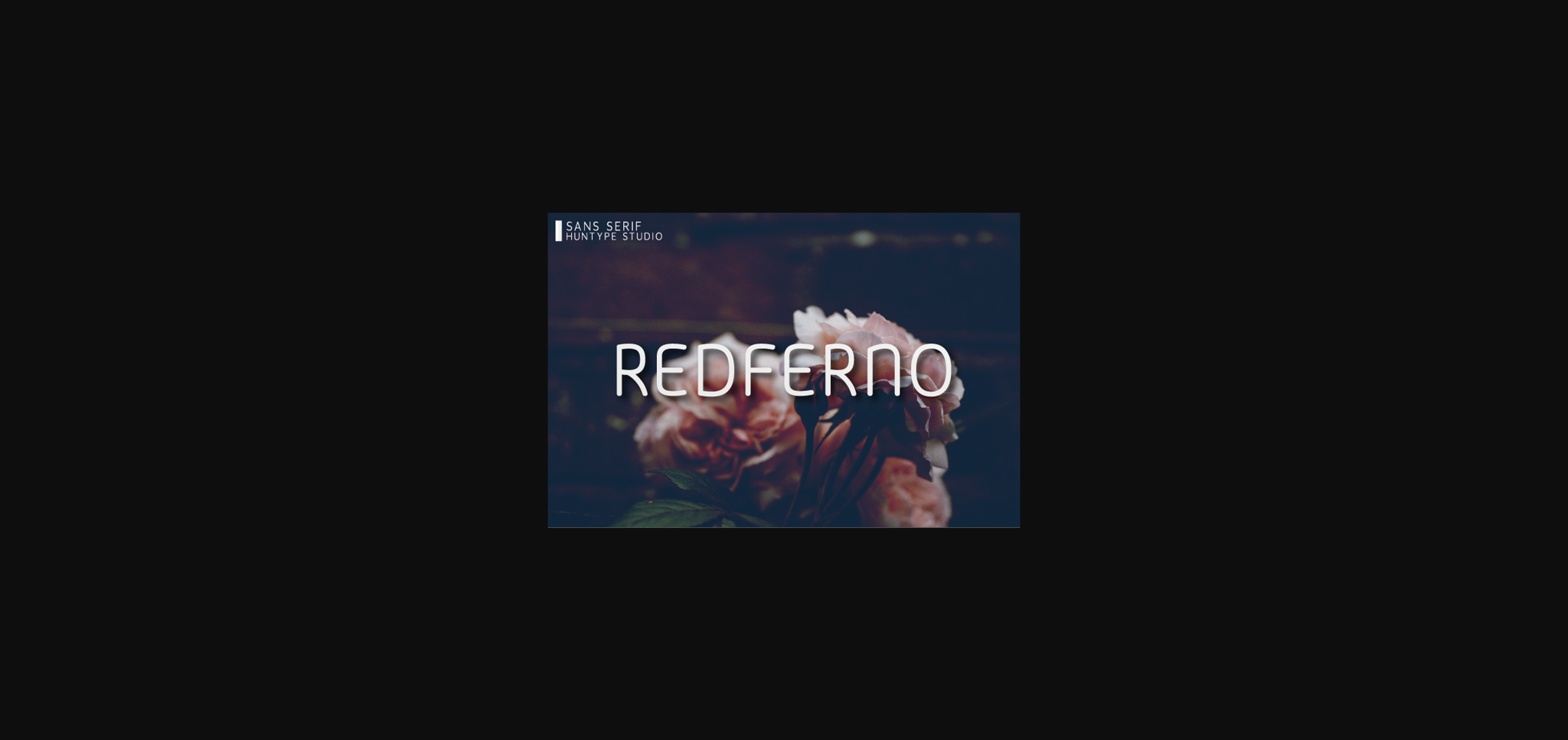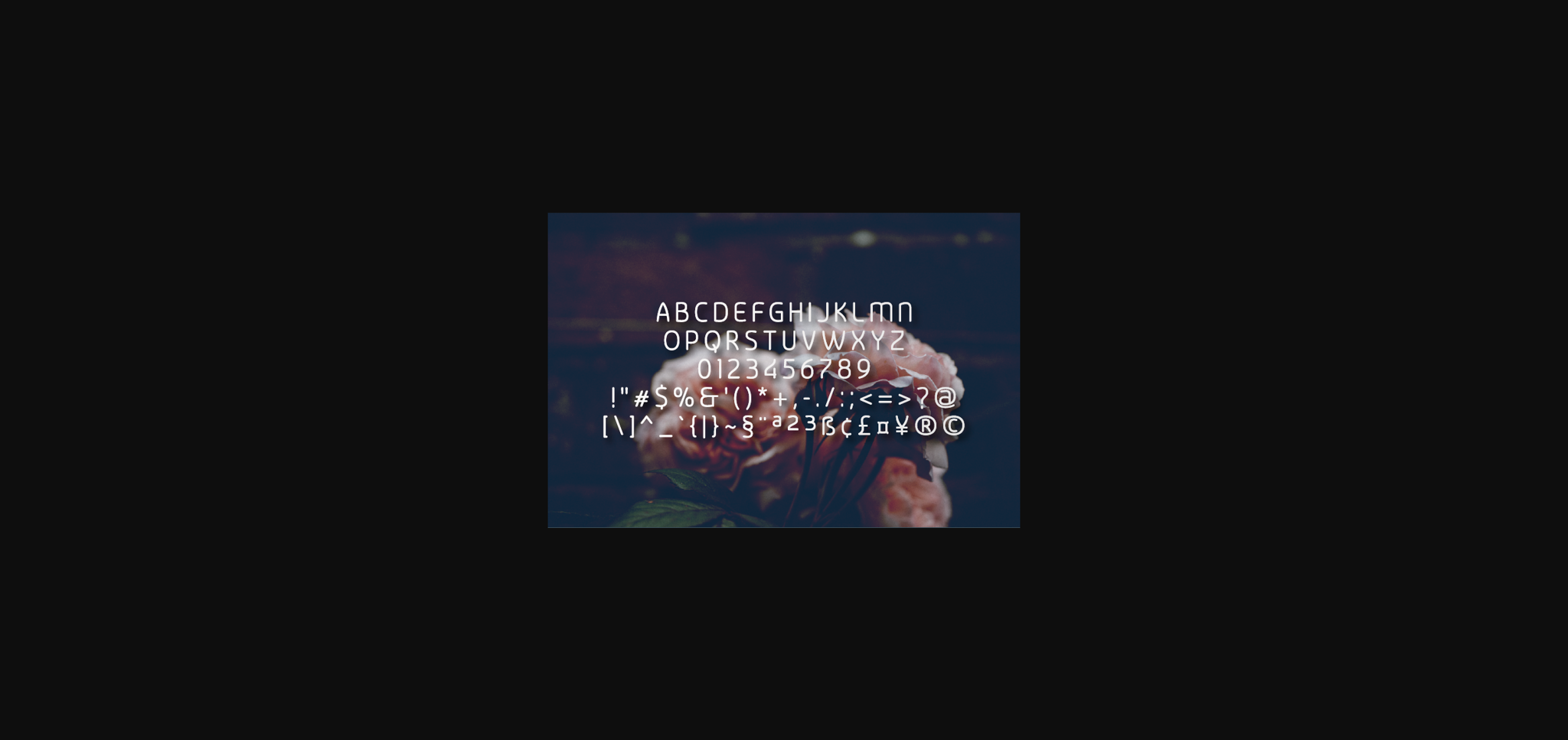
About Redferno Font
Redferno looks elegant and modern. This great sans serif font is perfect for headlines, branding, social media posts and much more!